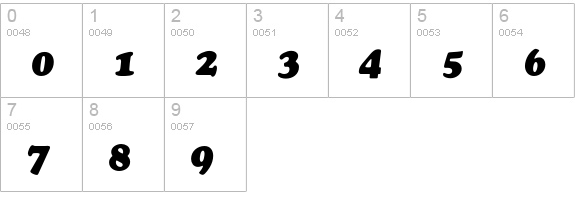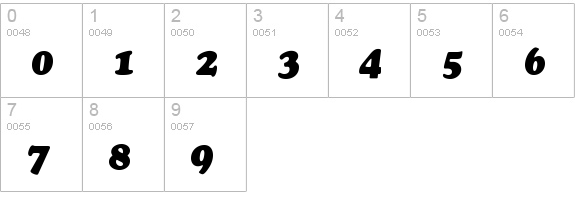
Cooper Black Italic is a maximum-weight, dramatic, italic variant in the Cooper typeface family \xE2\x80\x94 well suited to maximum-impact headlines, posters, and packaging.
Cooper Black Italic is a timeless and elegant font that exudes warmth and personality. Its slanted appearance adds a touch of sophistication to any design project, making it ideal for conveying a sense of friendliness and approachability. The italicized version of the classic Cooper Black typeface brings a unique flair to headers, quotes, and branding materials. What makes Cooper Black Italic even more appealing is the fact that it is freely available to download at FontsMarket.com. This means that you can easily access this stylish font and incorporate it into your creative endeavors without any cost. Whether you're working on a personal project or a professional campaign, Cooper Black Italic is sure to make a lasting impression with its bold and distinctive aesthetic.